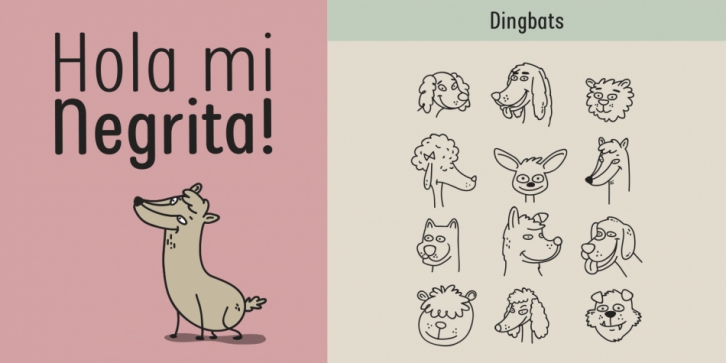
Mi Negra is a funny and hilarious typography designed especially for children, thought and created by Isabel de Gregorio.
It could be described as an original combination between a semi-handwright and semi sans-serif font. Thanks to its structure and nice endings “Mi Negra†is recommended for composing short texts (logotypes, packing, posters, etc.). It may similarly be used for illustrations and comics, as well as in printing press works for children from 6 to 13 years old for instance.
Mi Negra has been conceived to be a useful support in all kinds of illustrations works (please note that Isabel, the type designer, considers herself primarily an illustrator). The font designer of Mi Negra tells that every time she needed to provide some text data (i.e. in children infographies) and needed to make them more understandable and suitable for children, she used this typography. The former idea was than to create a font who could be a second option to comic sans, but as the project started to reveal its forms, it was clear that it was revealing another connotation and its own character. In this way, Mi Negra went on modifying its forms and the more it developed, the more it was showing its new characteristics and concepts.
The family is composed of three weighs: Light, regular and black. It provides also interesting functional ligatures. It also includes a dingbat with nice doggies. It has 434 characters and can work with 208 languages.